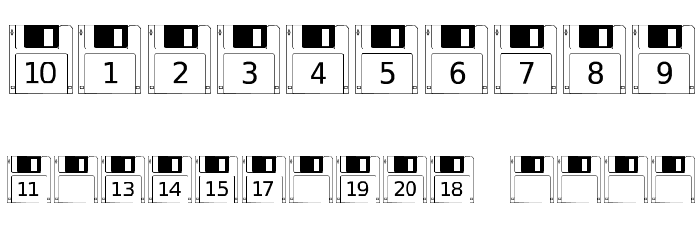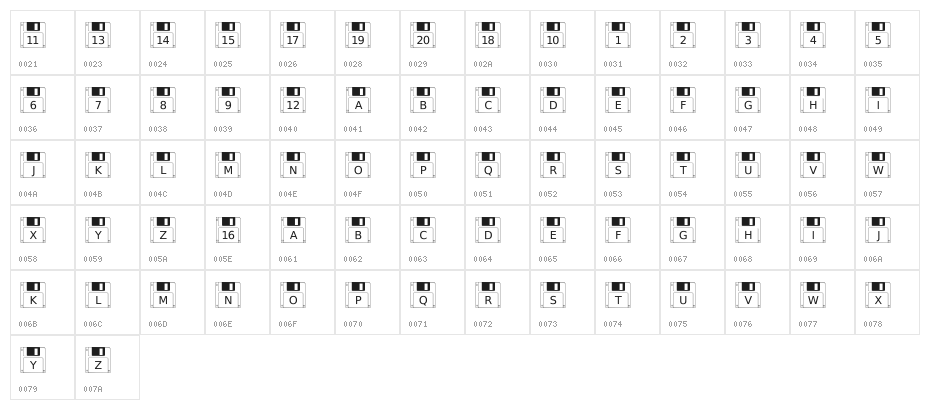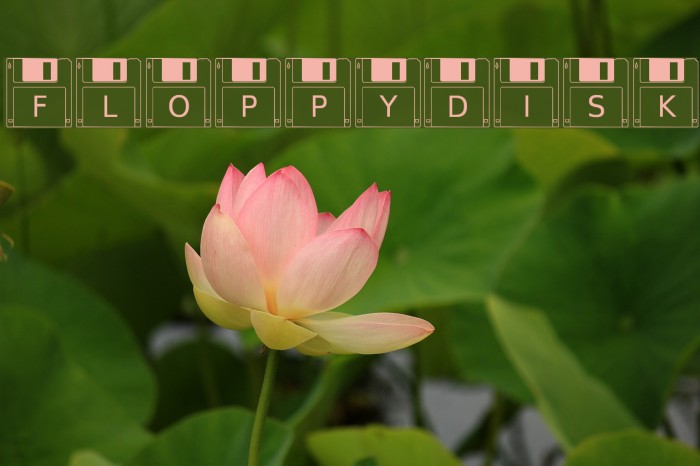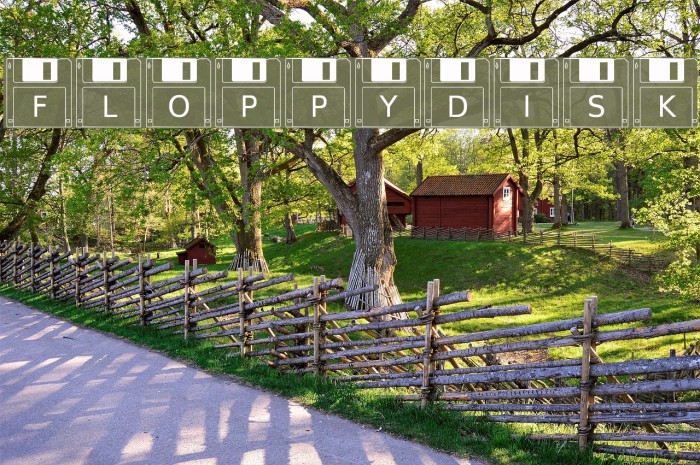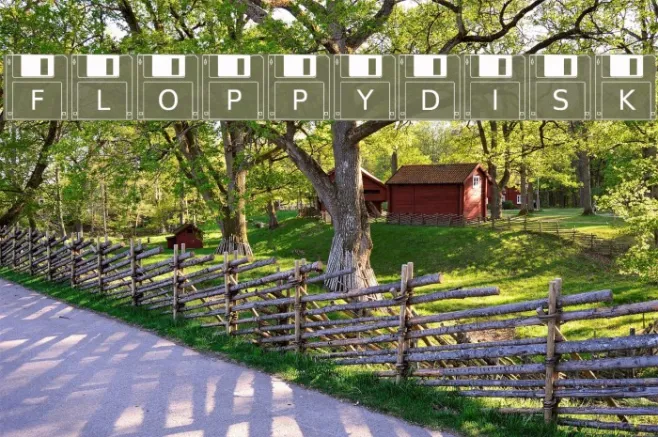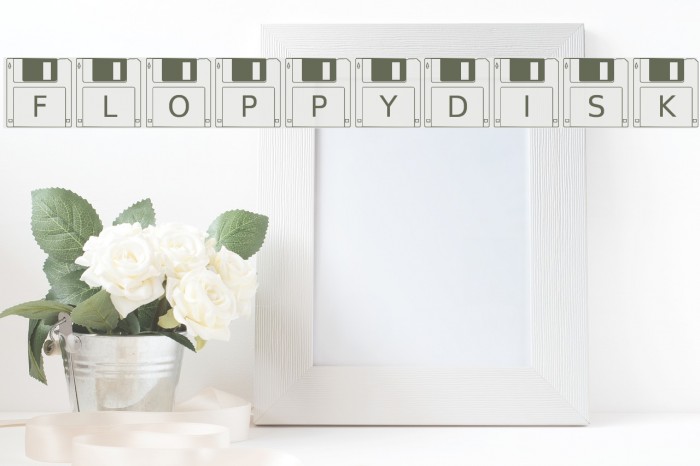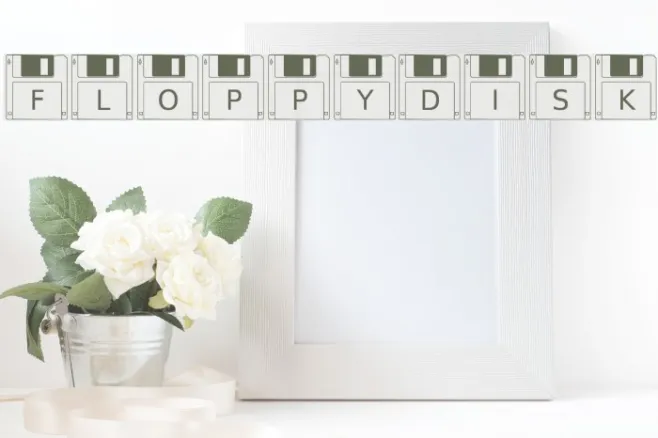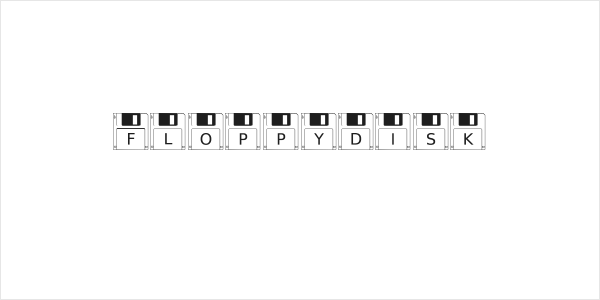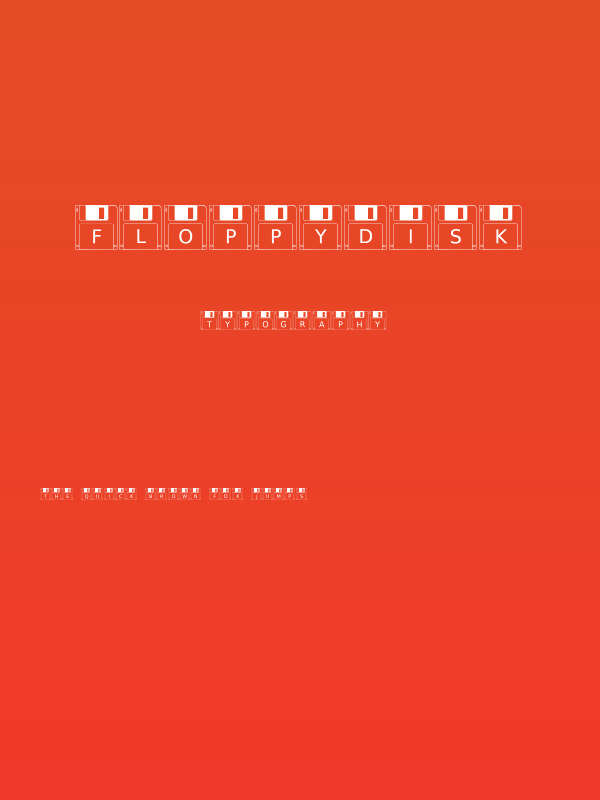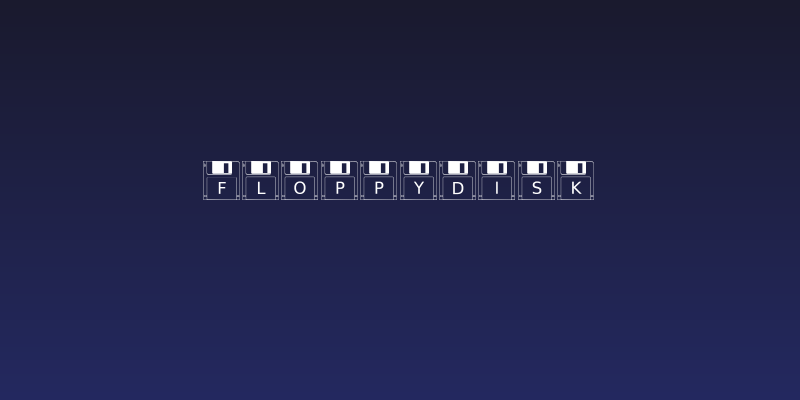
FloppyDisk Font
FloppyDisk Description
This font is uniquely designed with each character placed inside the iconic shape of a floppy disk, creating a nostalgic and playful aesthetic. The characters are bold and clear, ensuring readability despite the decorative element. The uppercase and lowercase letters are consistent in style, maintaining a uniform appearance across the alphabet. Numbers are also included, each fitting neatly within the floppy disk outline. This design is perfect for projects that aim to evoke a sense of retro technology or digital nostalgia, offering a distinctive look that stands out.
| Overall Style | Retro, Nostalgic, Playful |
| Use Case | Logos, Posters, Digital Art |
| Proposed Projects | Ideal for retro-themed designs, tech-related branding, digital art projects, and nostalgic marketing materials. |